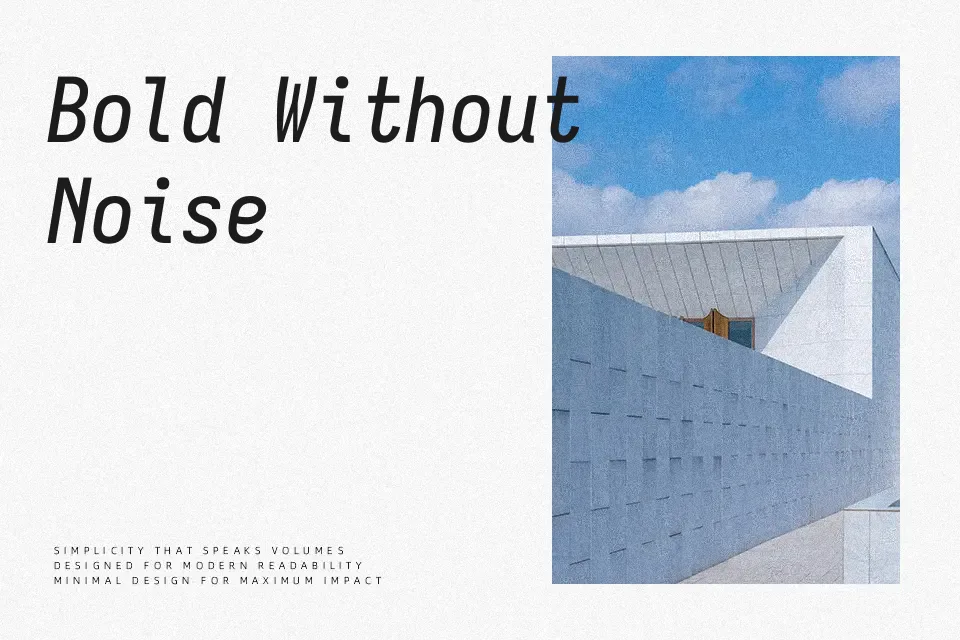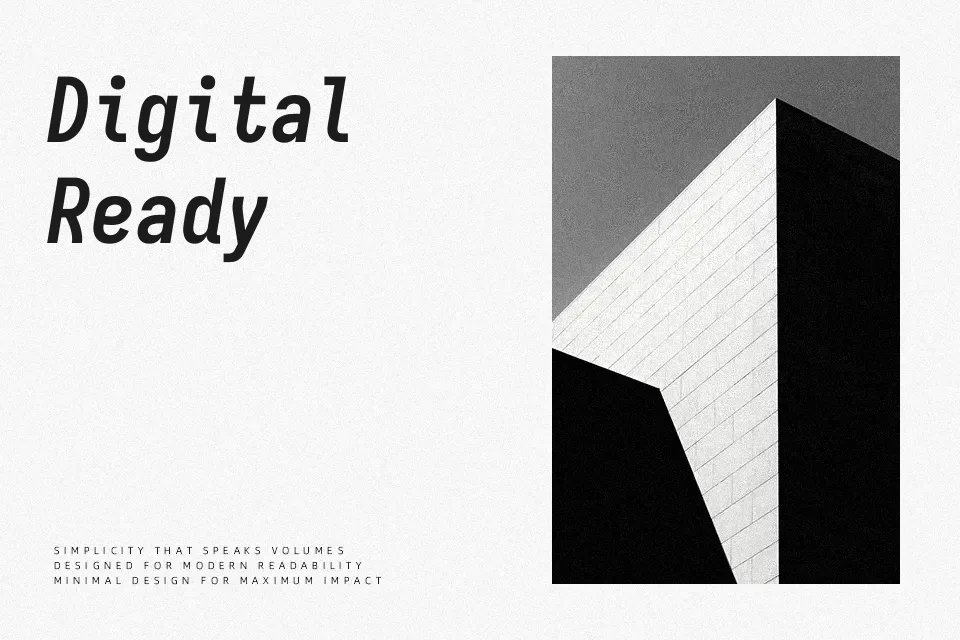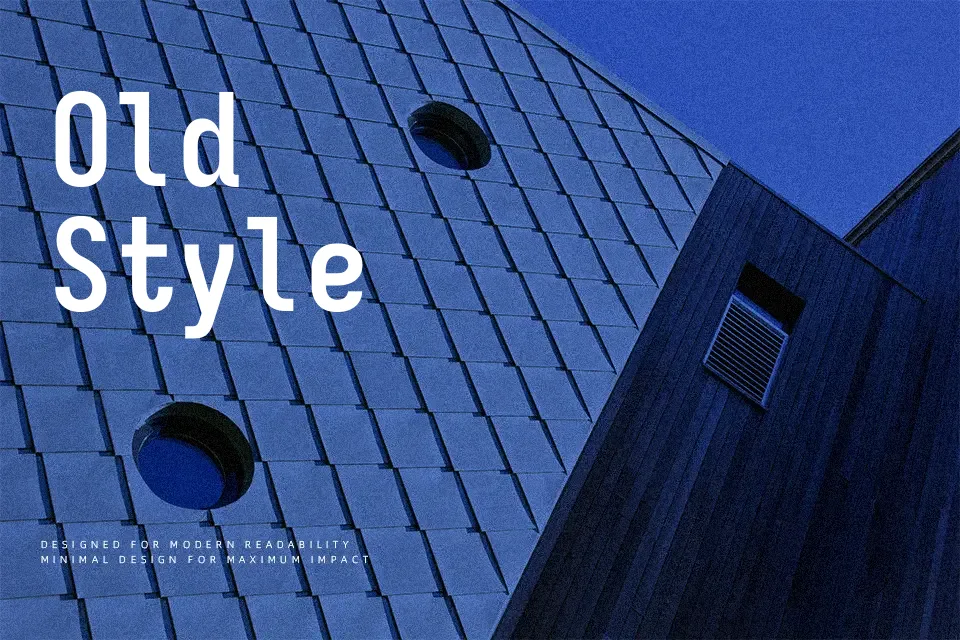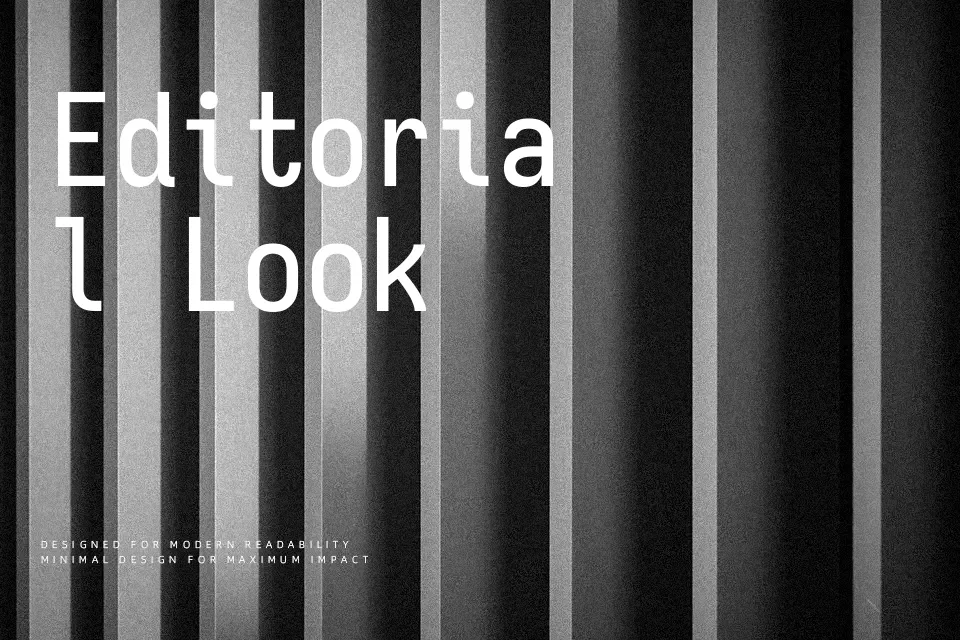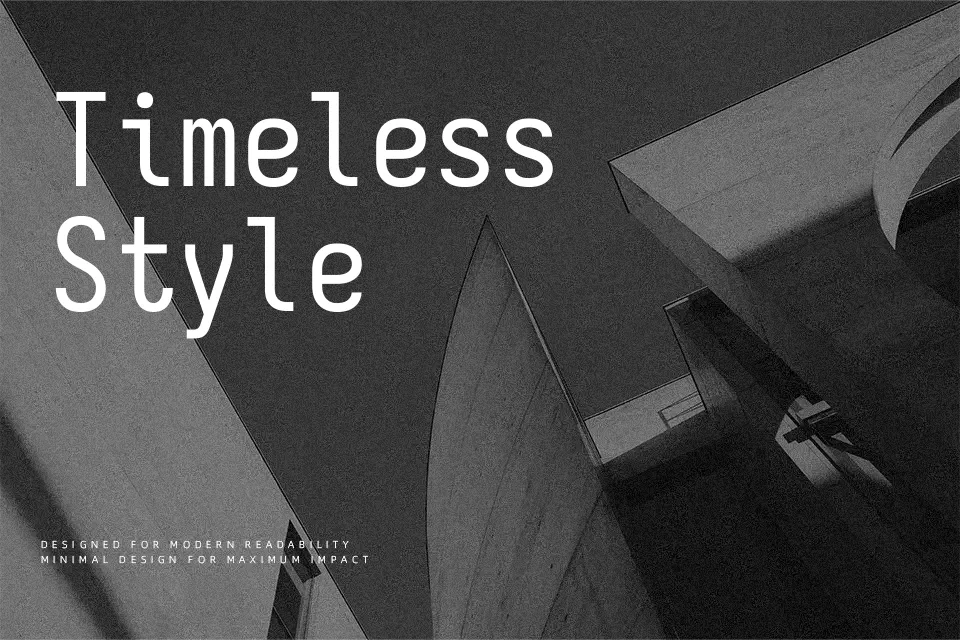
Iosevka Charon Mono Font
Designed by Juliette Pluto
Iosevka Charon Mono is a true monospaced spin on the Iosevka family, with narrow proportions, tight but consistent spacing, and sharply drawn curves that keep dense code blocks visually organized. Its strokes feel engineered rather than decorative, so the overall impression leans functional and modern rather than playful. In practice, it works well in code editors, terminal themes, technical documentation, and UI panels where alignment matters and you often scan symbols at a glance. If you want a more expressive look for marketing headlines or lifestyle branding, its restrained geometry can feel too dry, especially at large sizes. Compared with other coding fonts, it feels slightly more compact and systematic, which is helpful on crowded screens but less forgiving for very small text on low-resolution displays.
code editors and IDE themes
terminal and command-line interfaces
technical documentation layouts
developer-focused dashboards and tools
decorative branding or lifestyle logos
long-form reading outside developer contexts
kids or playful product graphics
Perfect for body text, gaming, and headline, with a clean and monospace style.